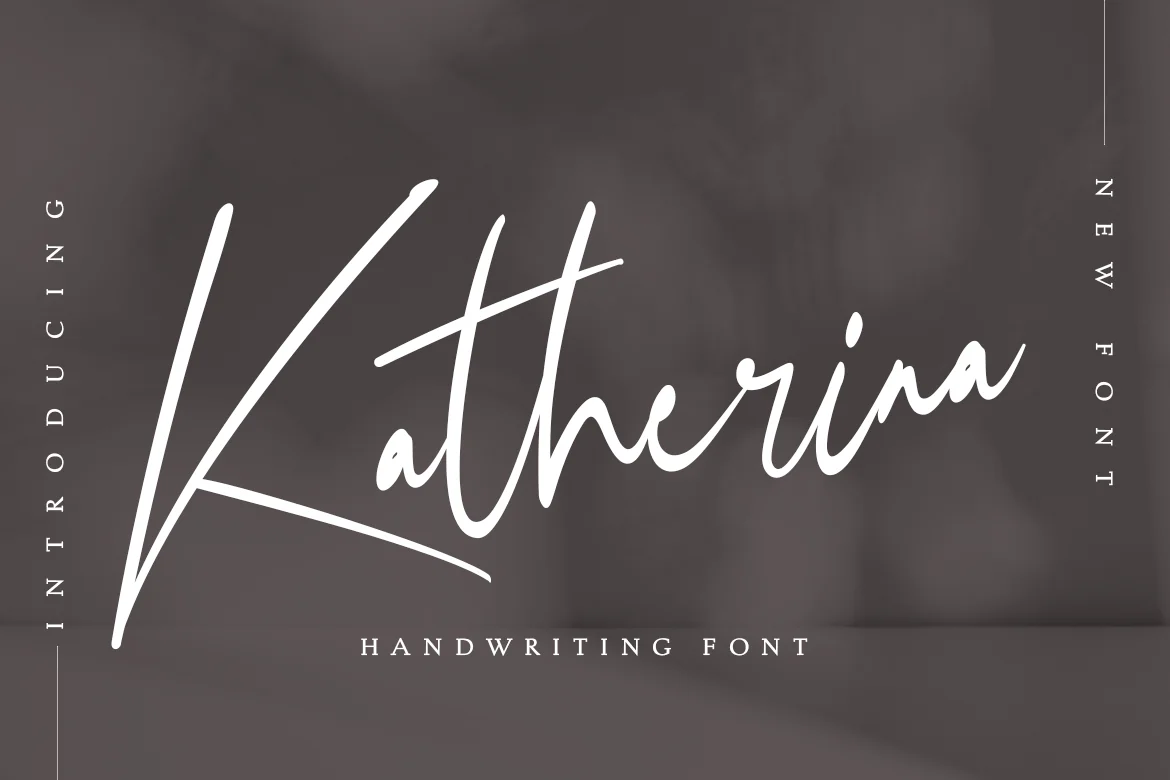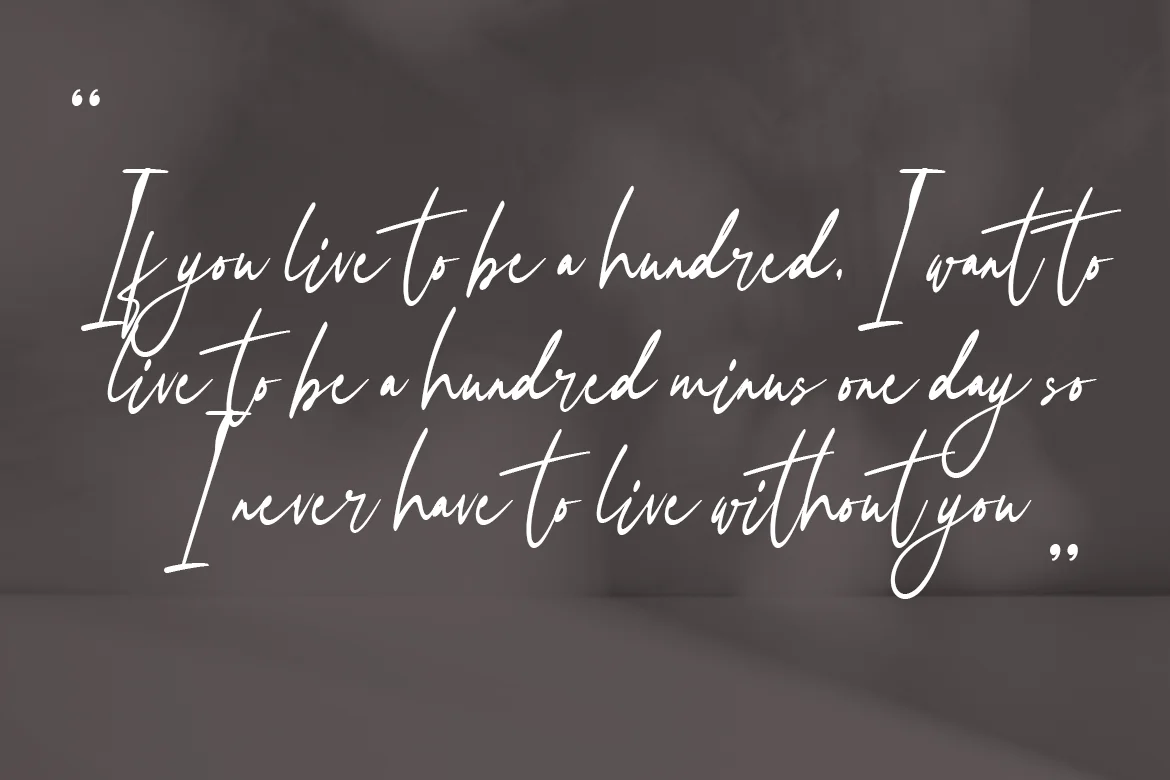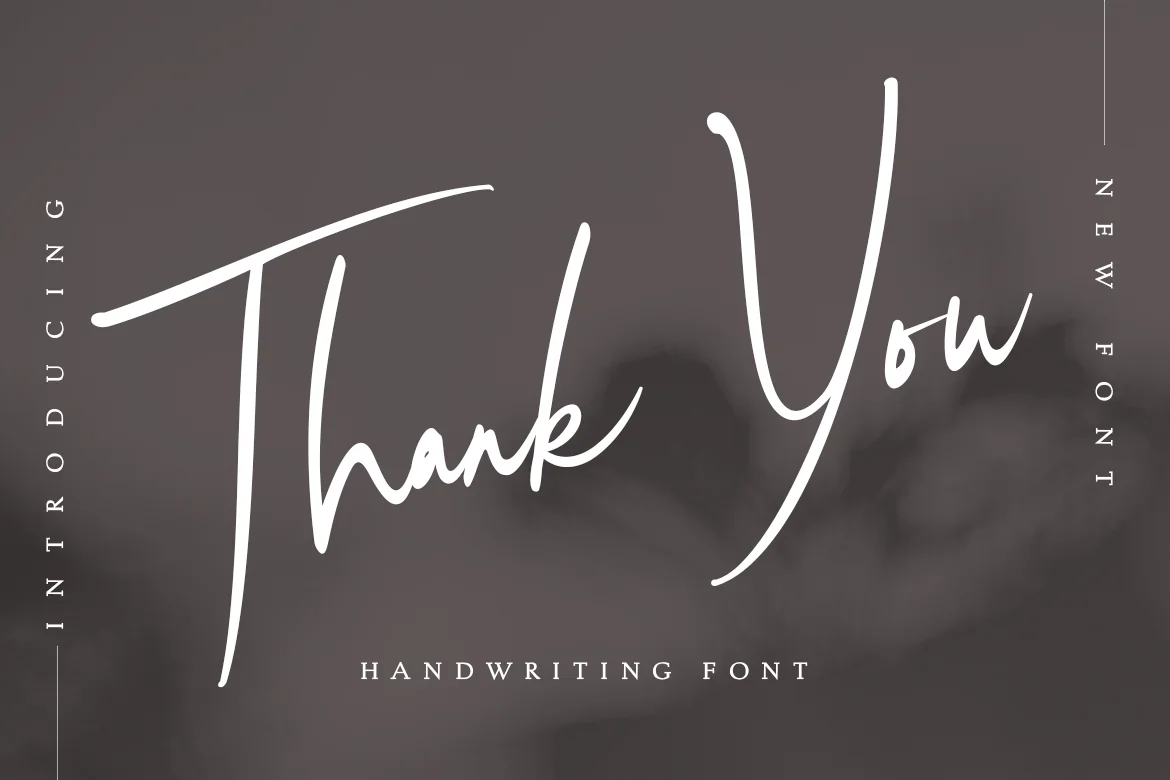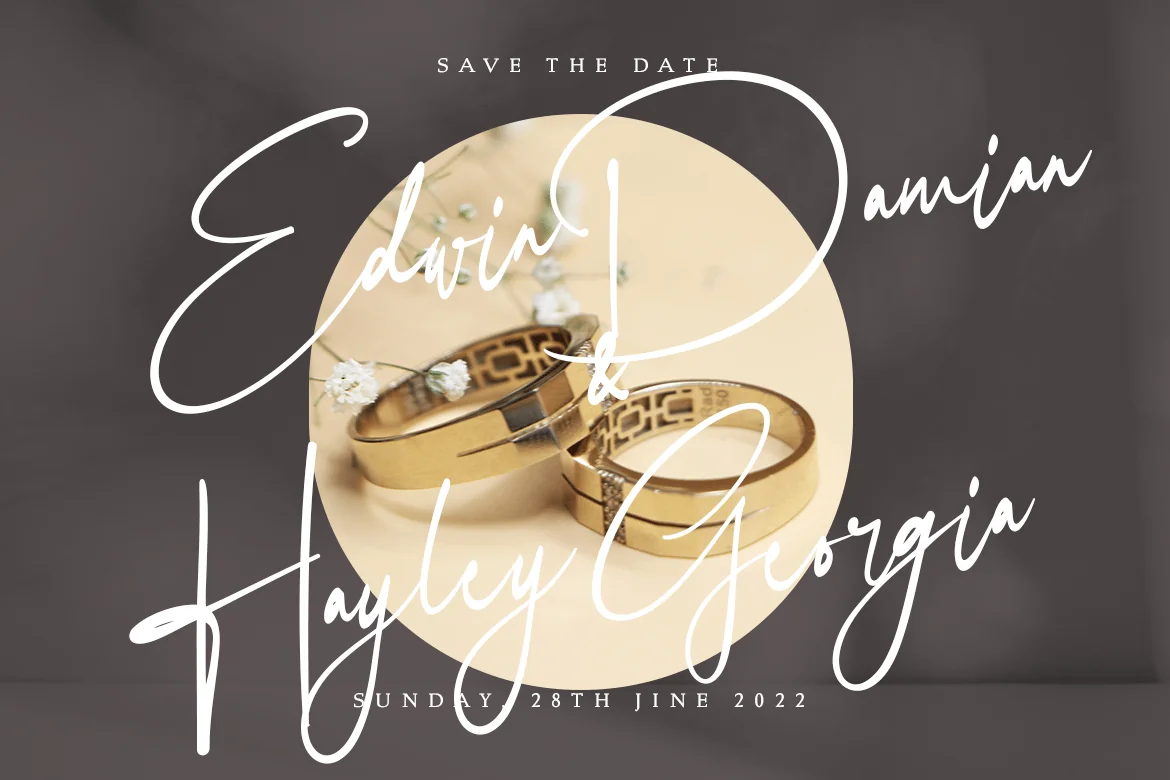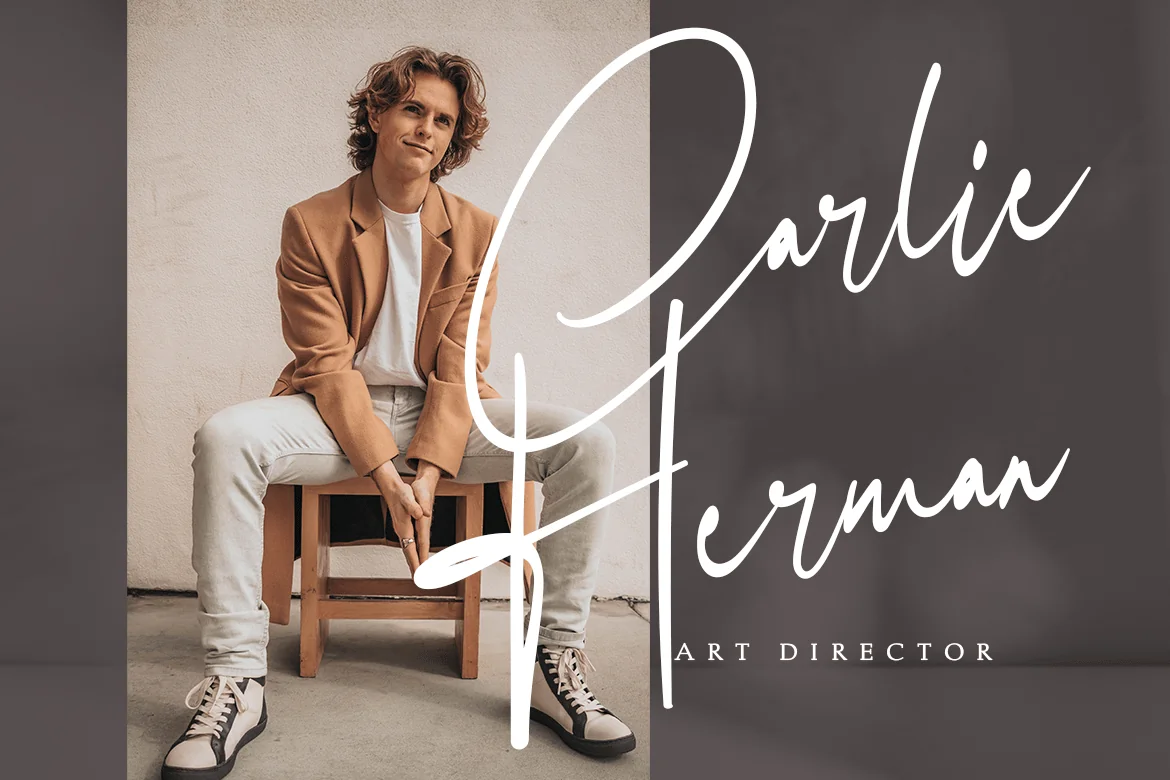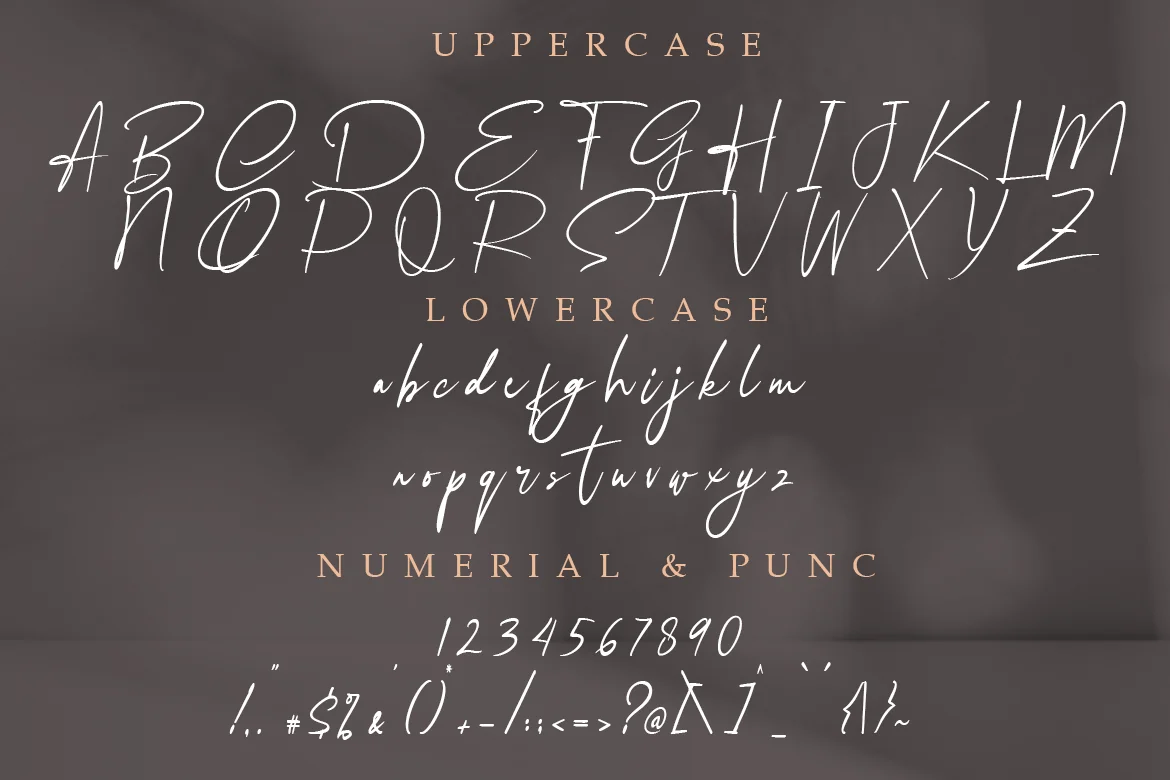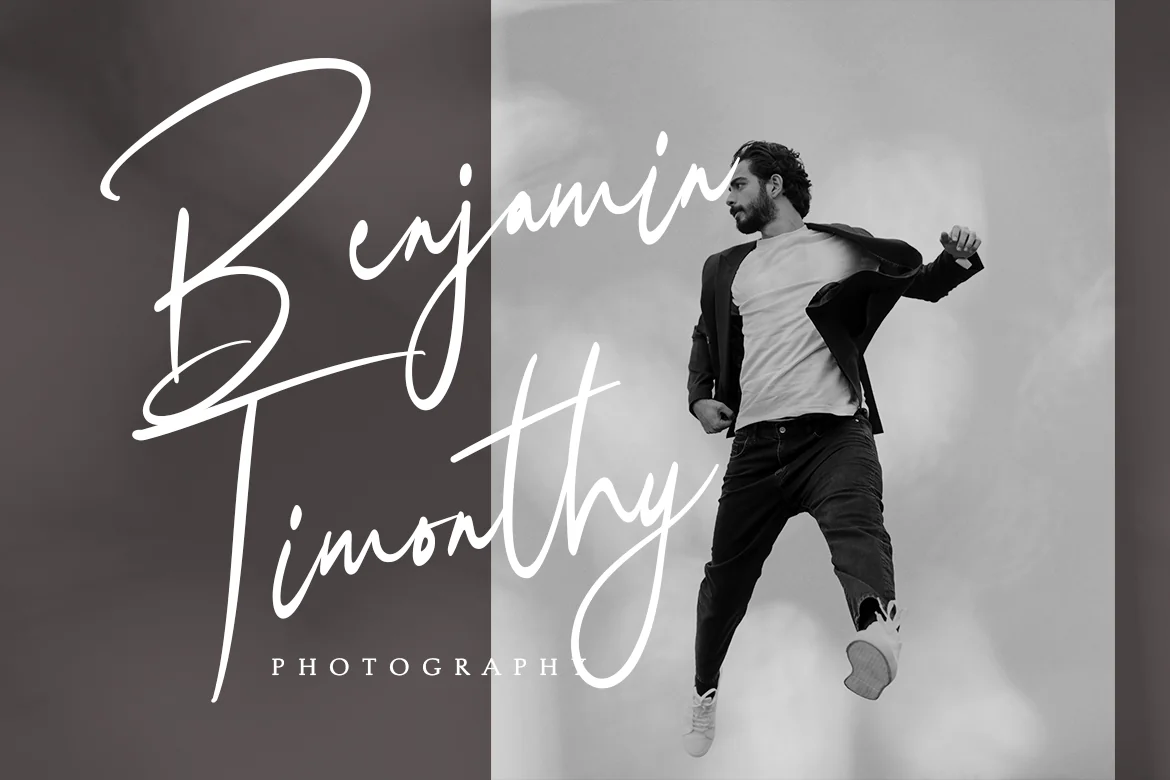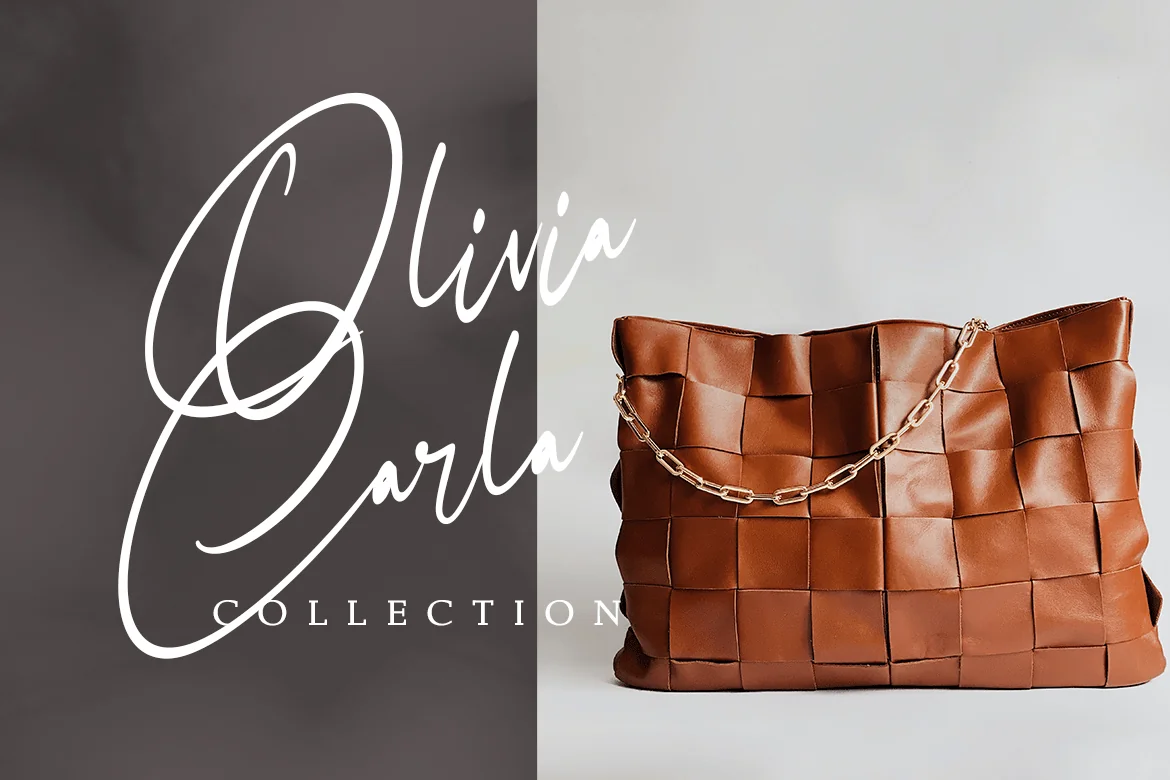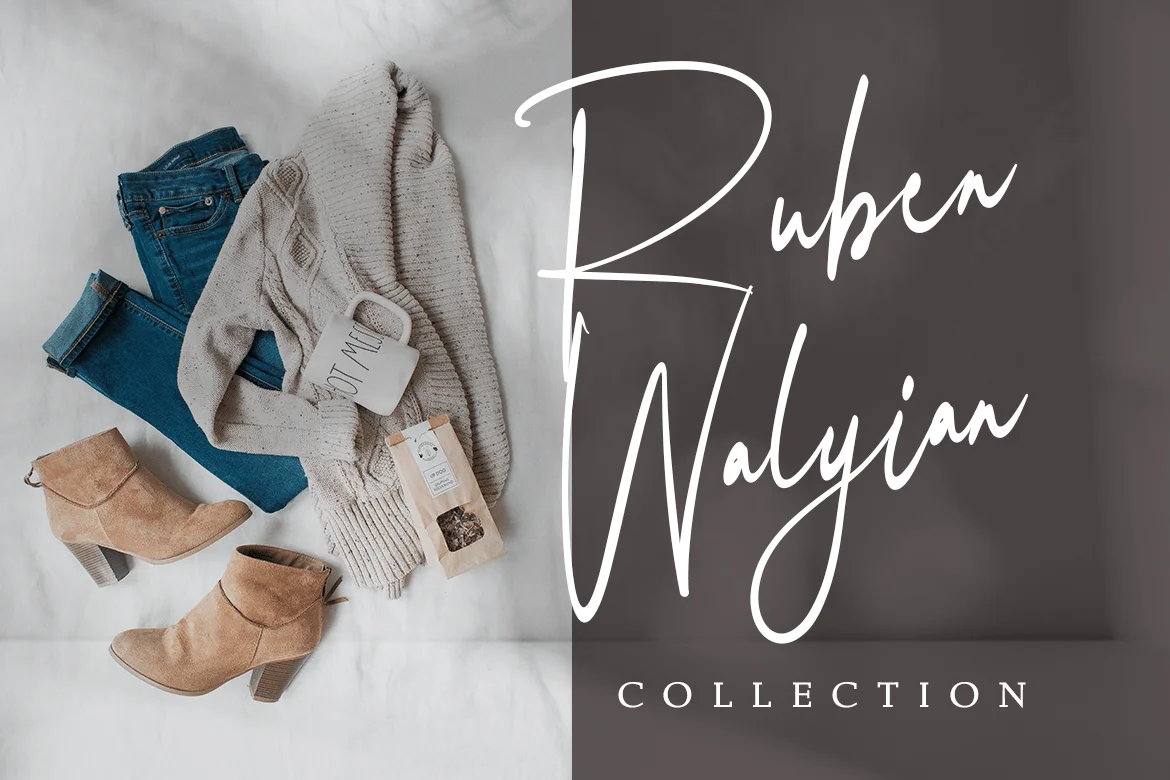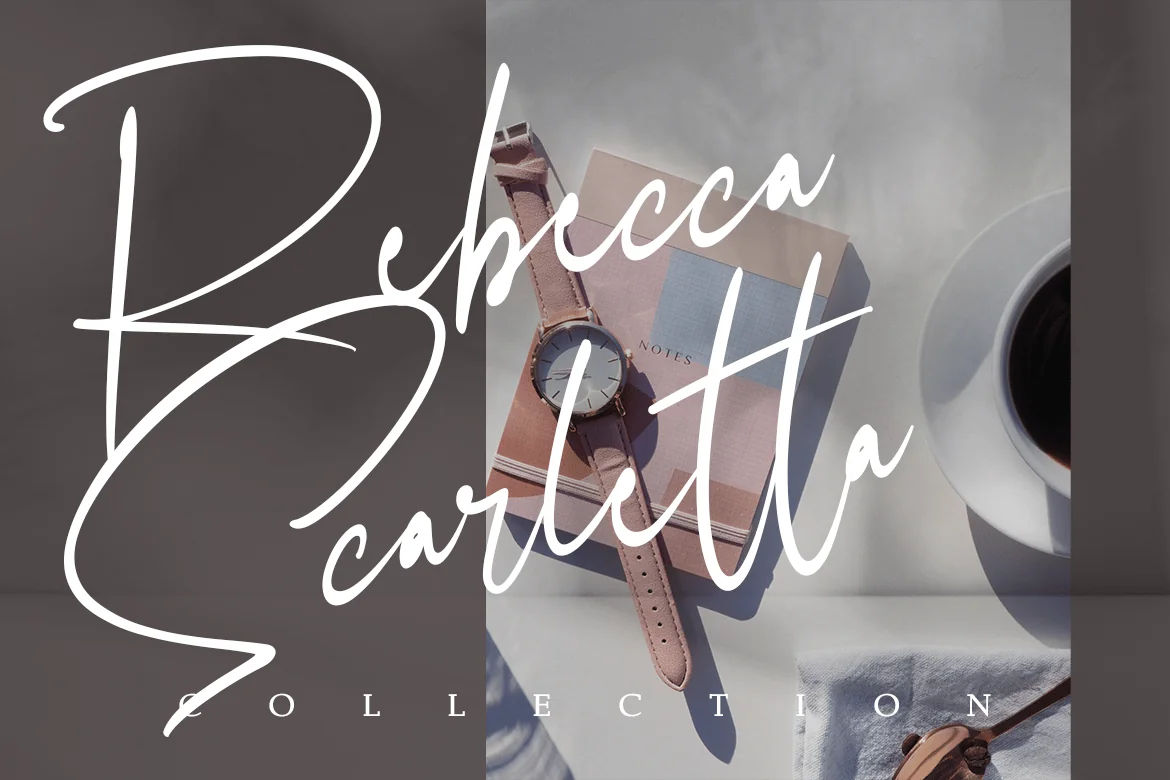
Katherina Handwriting Font
Katherina is a dazzling script font. This font is neatly crafted and highly detailed. Whatever the topic, this font will be a wonderful asset to your font library, as it has the potential to enhance any creation.
- uppercase & lowercase
- numbers and punctuation
- multilingual support